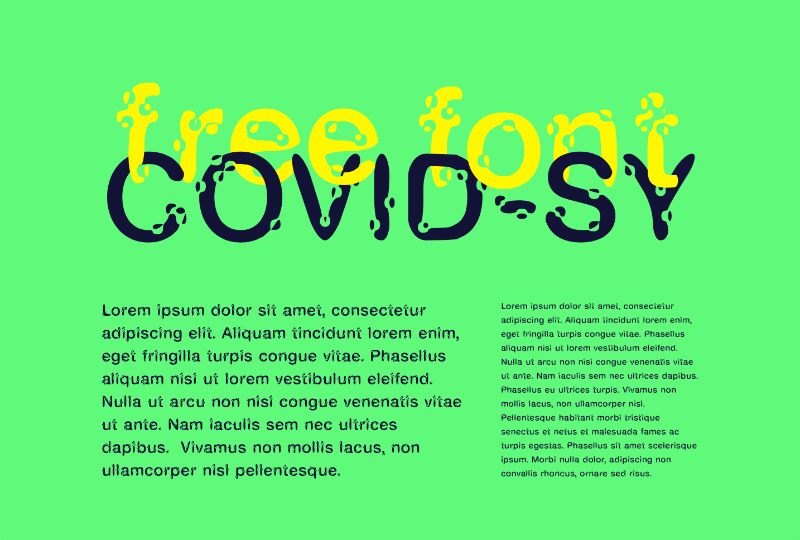
COVID-SY, designed by the talented Selcuk Yilmaz, is a captivating display font that is perfect for projects that require a bold and edgy aesthetic. Its distorted style adds a unique and eye-catching touch to any design, making it ideal for use in marketing campaigns, advertising materials, or social media graphics. With its wide range of font widths, including semi-bold and bold versions, COVID-SY is versatile enough to suit a variety of creative endeavors. Whether you're creating posters for an upcoming event or designing packaging for a new product launch, COVID-SY is sure to make your message stand out from the crowd.